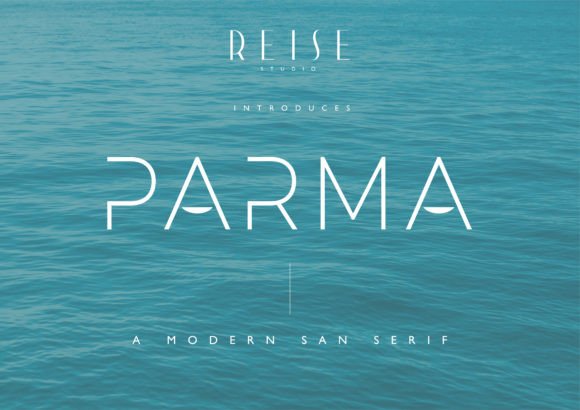
Parma Font
**Introducing Parma: The Minimalist Masterpiece for a Mesmerizing Online Presence**
In the realm of digital aesthetics, where every pixel counts, typography wields the power to enchant, captivate, and persuade. Allow us to introduce Parma, the minimalist sans serif font poised to elevate your website to the pinnacle of sophistication. Crafted with unwavering precision by the visionary designers at reisestudio, Parma embodies the essence of modern minimalism, empowering you to forge an unforgettable online identity.
**A Symphony of Simplicity and Clarity**
Parma's minimalist aesthetic is a breath of fresh air in a world often cluttered with visual noise. Its clean lines and unadorned forms effortlessly command attention, allowing your content to take center stage. Each letterform is meticulously designed to convey clarity and impact, ensuring that your message is delivered with crystal-clear precision.
**Perfect Harmony for Branding and Design**
Whether you're crafting a striking logo, designing captivating packaging, or creating visually stunning headings for your magazine and brochure, Parma is your perfect partner. Its versatile nature seamlessly adapts to a wide range of design applications, lending a touch of effortless elegance to every project you undertake.
**Minimalism with Maximum Impact**
Don't be fooled by Parma's minimalist appearance; it possesses a quiet power that captivates and commands attention. The bold letterforms and precise angles create a visual symphony that draws the eye and leaves a lasting impression. Imagine your website, adorned with Parma's minimalist charm, becoming an irresistible magnet for visitors.
**A Canvas for Your Creative Vision**
Parma's understated elegance provides the perfect canvas for your creative ideas to flourish. Its neutral aesthetic empowers you to experiment with color, imagery, and layout, allowing your unique style to shine through. Whether you're designing a sleek brochure, an alluring website, or eye-catching social media graphics, Parma will effortlessly enhance your creative vision.
**Elevate Your Digital Presence**
In the competitive landscape of the digital world, every touchpoint matters. Parma empowers you to craft a website that not only informs but also captivates, leaving a lasting impression on your visitors. Its minimalist charm effortlessly elevates your brand, setting you apart from the competition and attracting customers who appreciate sophistication and style.
**Embrace Minimalist Mastery**
Step into the world of minimalist typography and experience the transformative power of Parma. Its clean lines, bold forms, and versatile nature will ignite your creativity and elevate your digital presence to new heights. Join the growing number of designers and businesses who have discovered the magic of Parma and witness how it transforms your online identity.